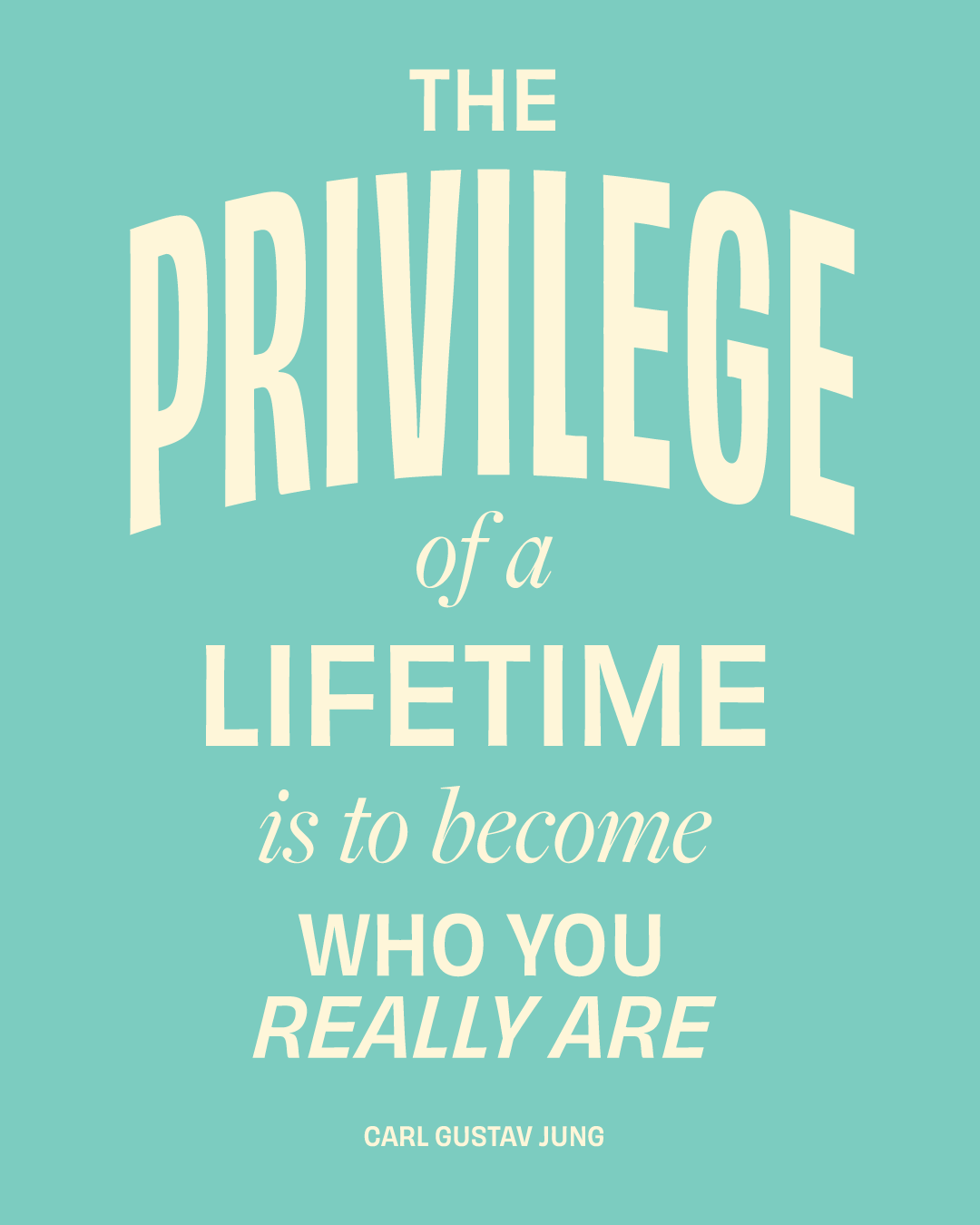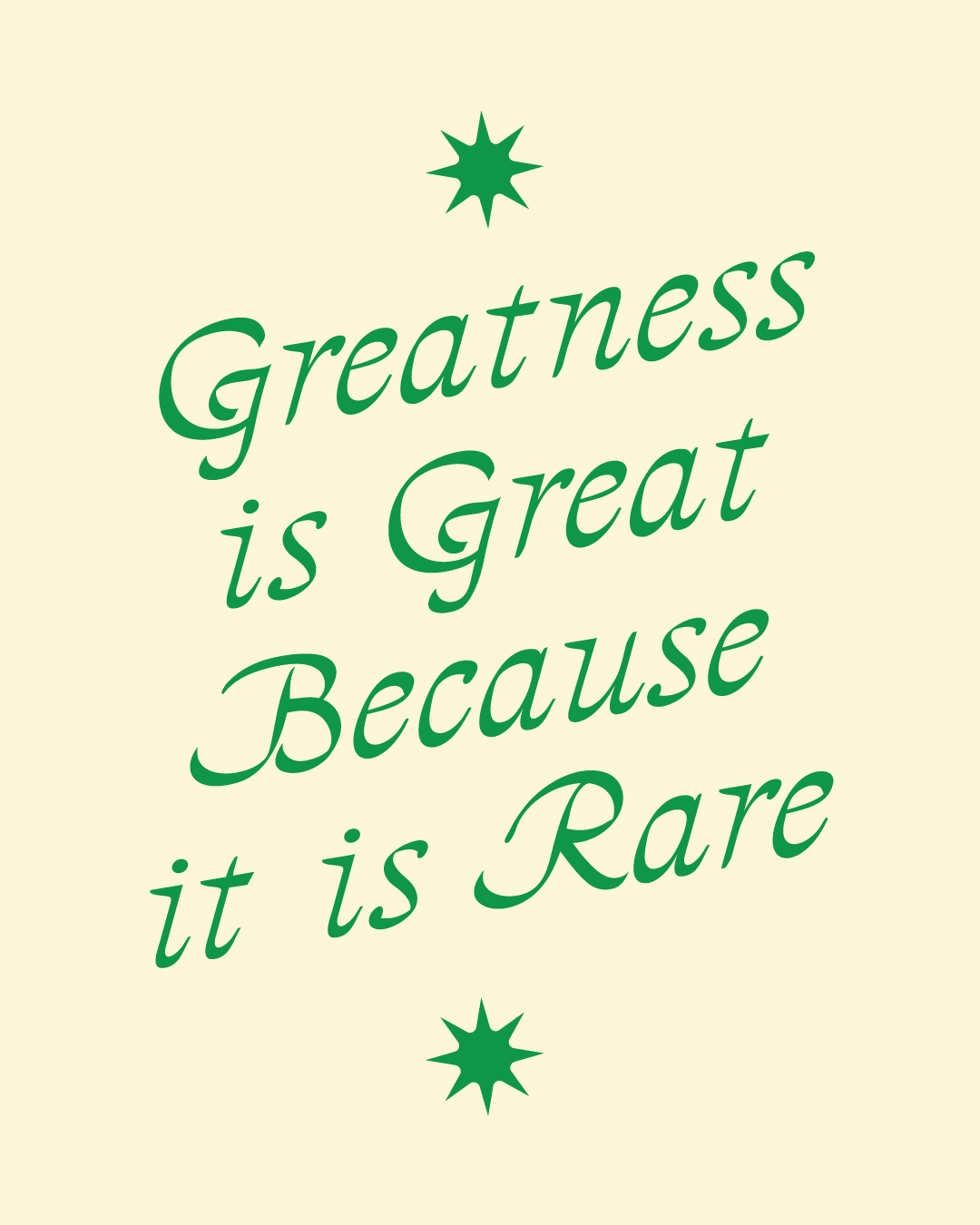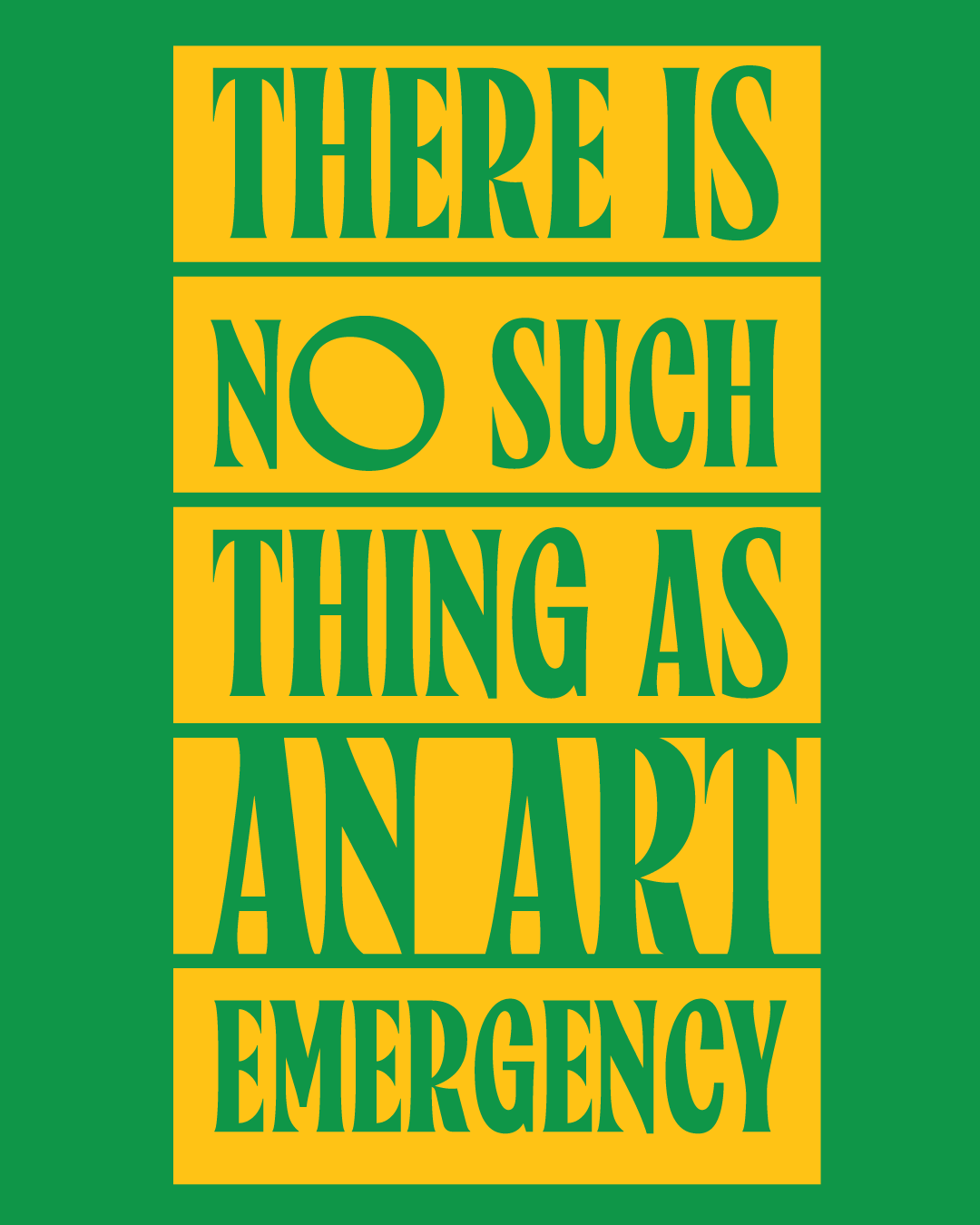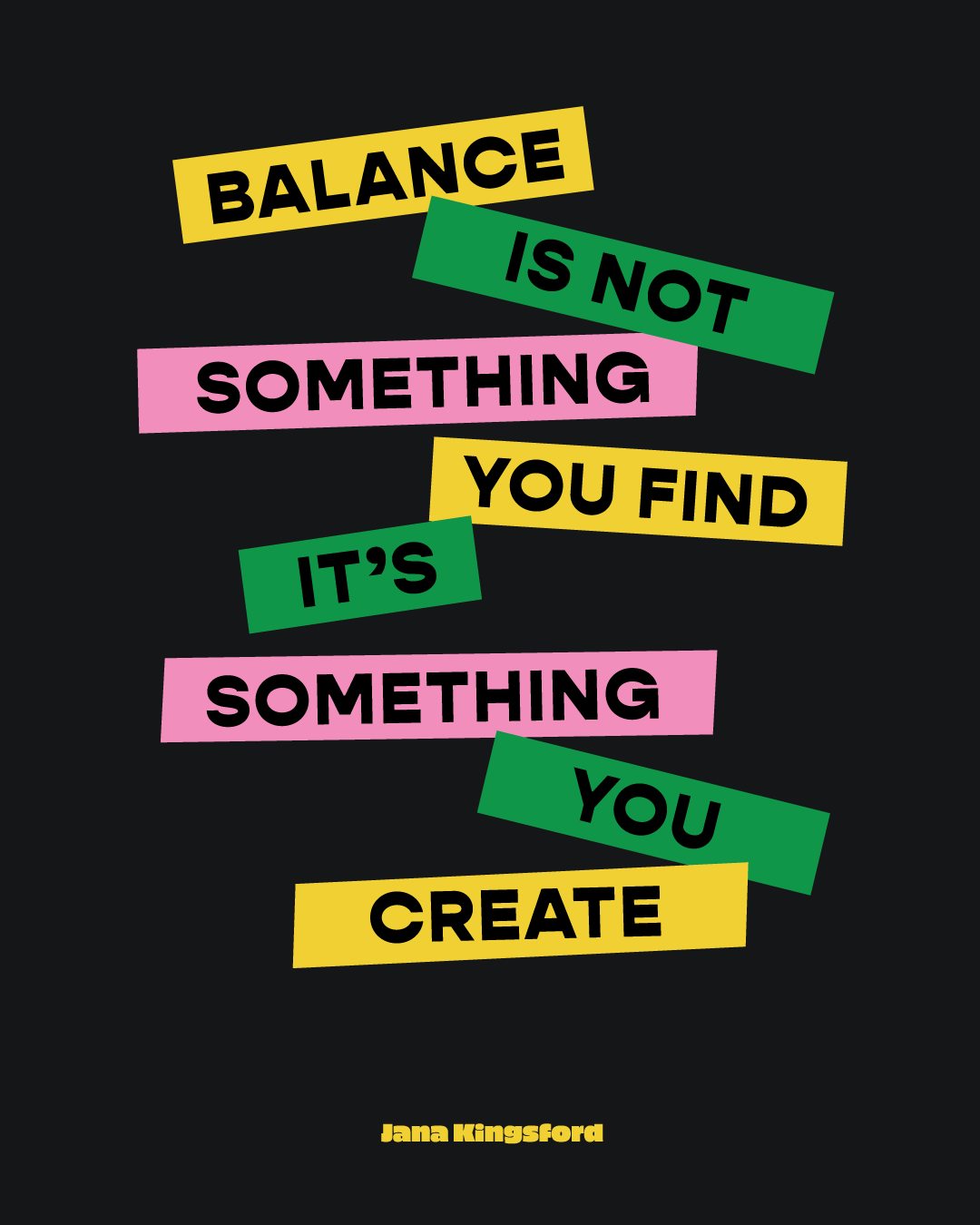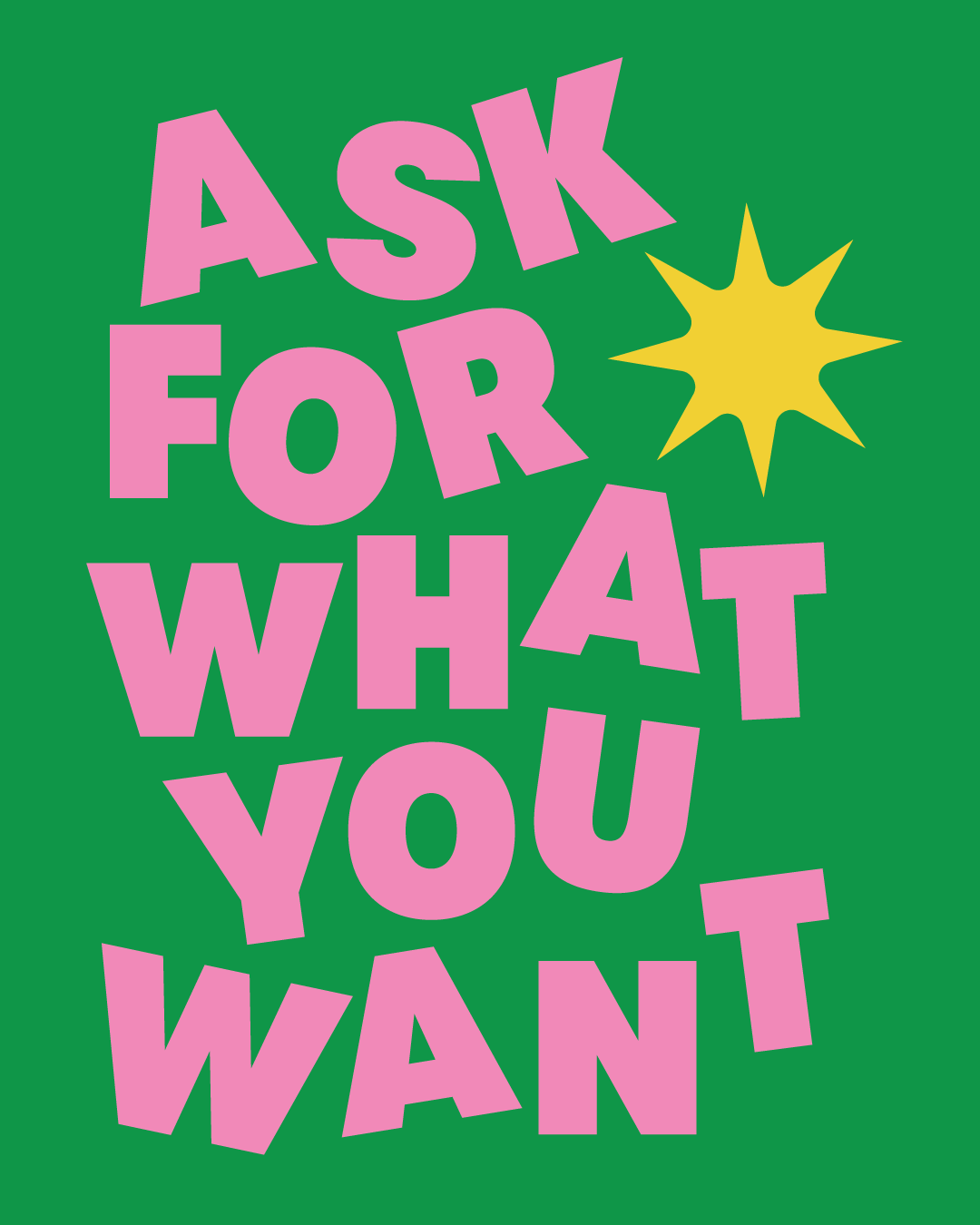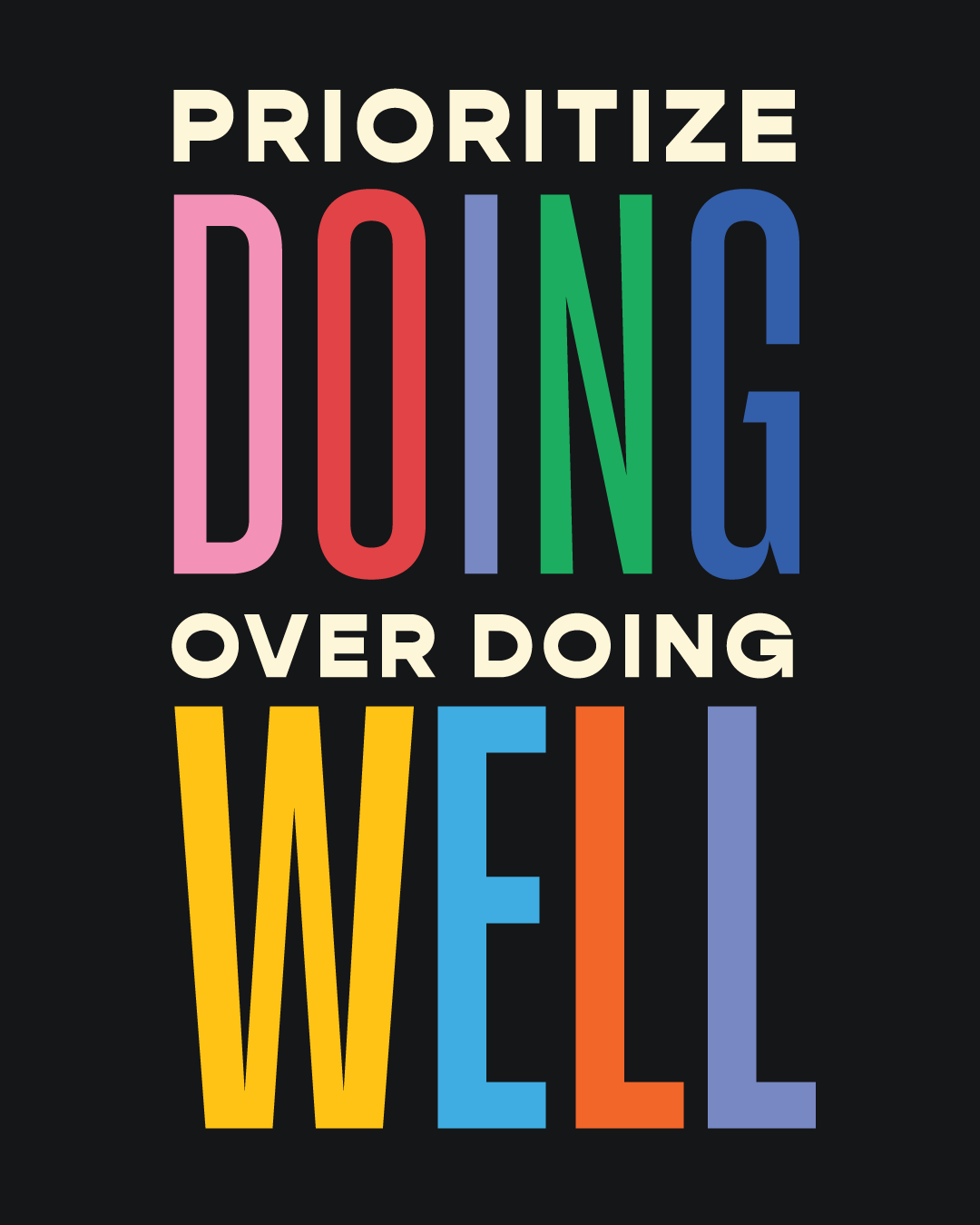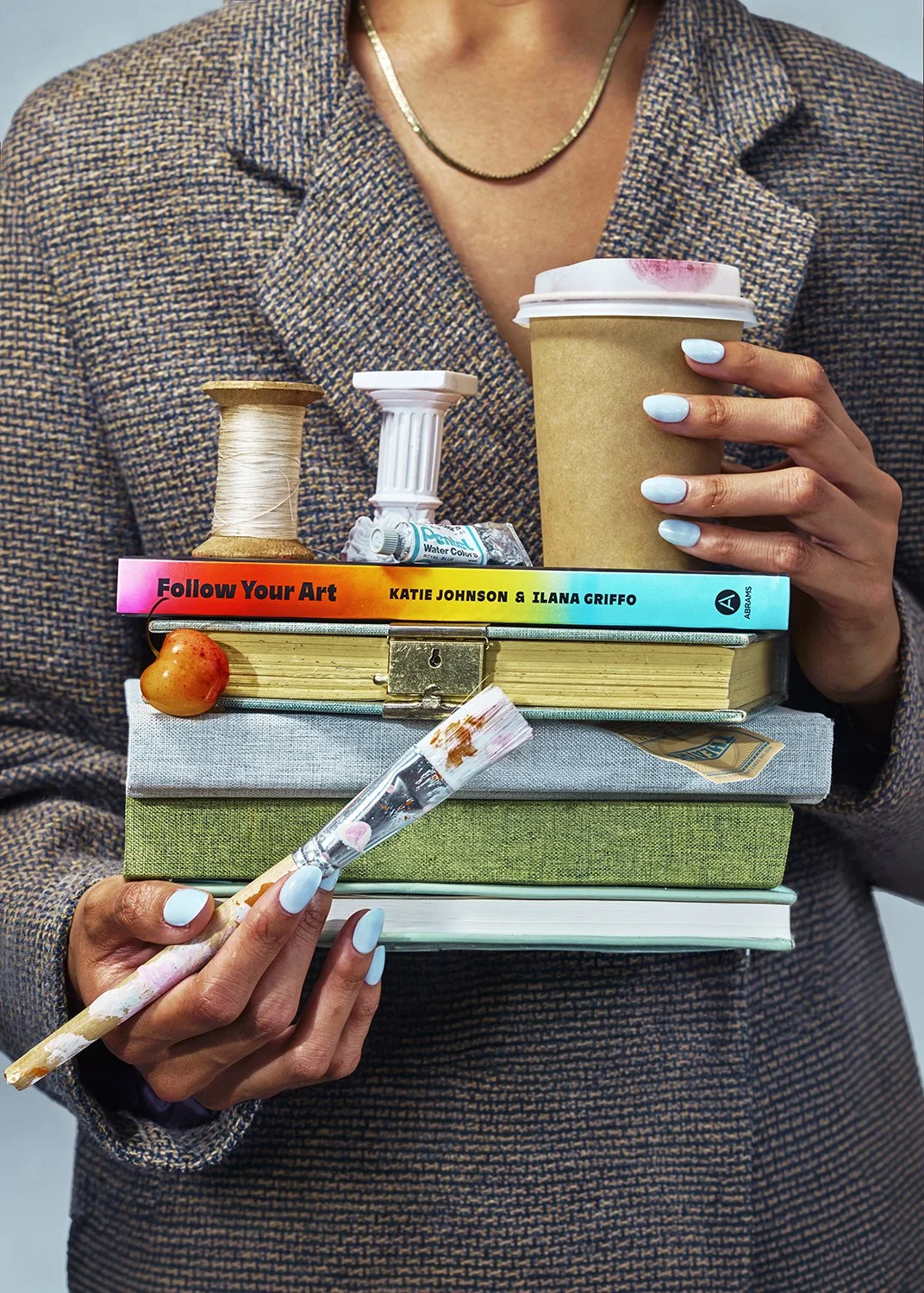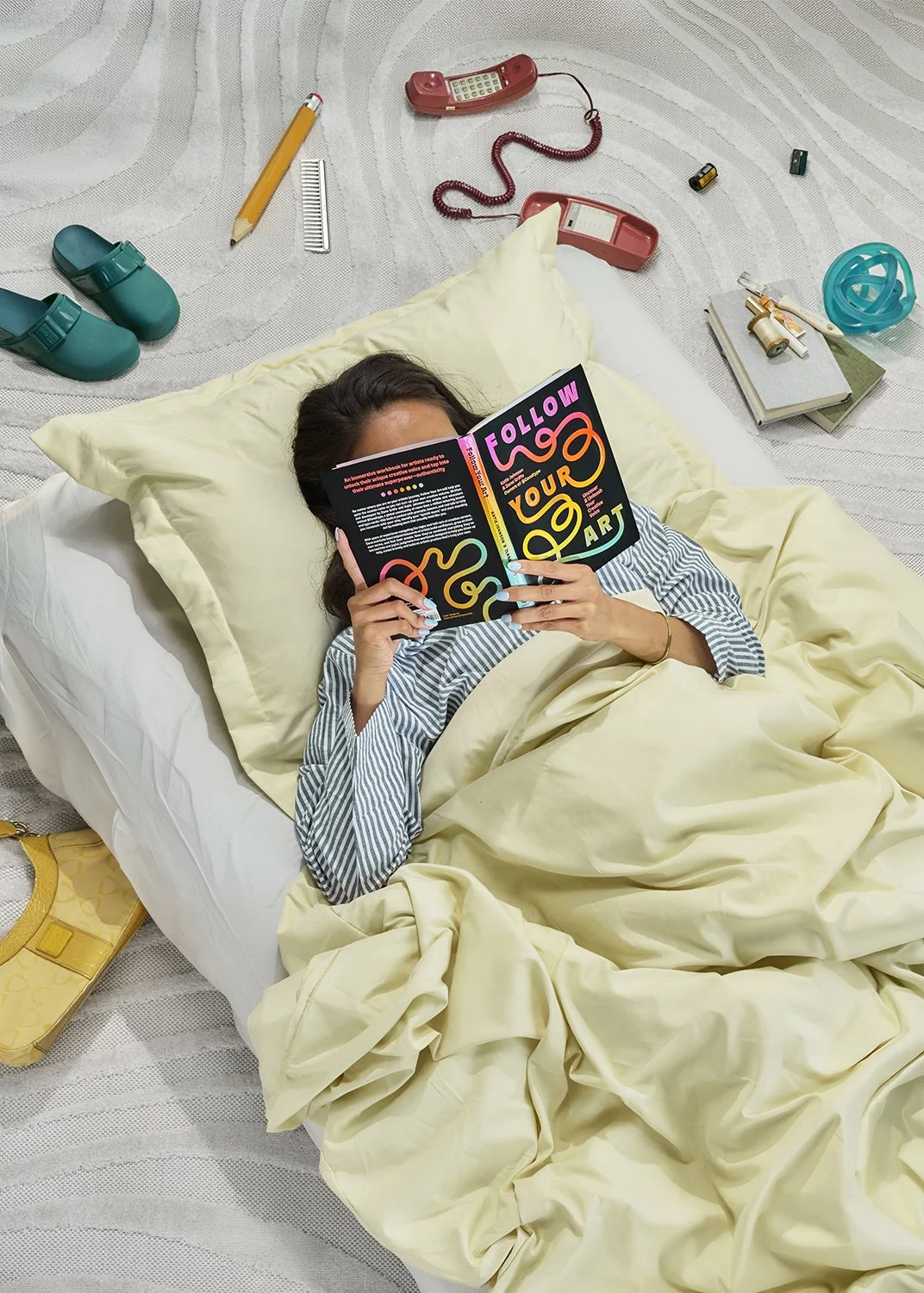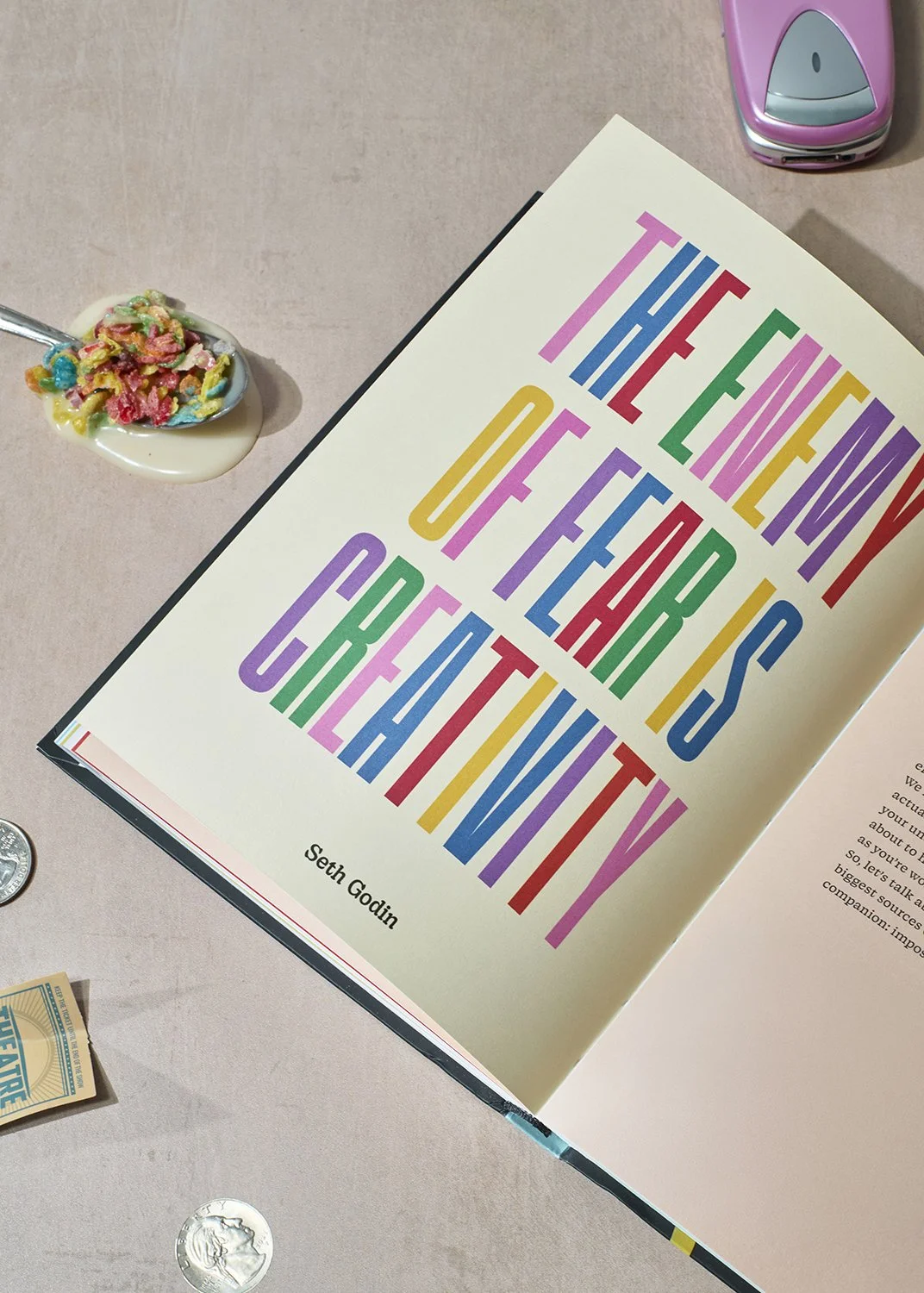
Project Overview
Follow Your Art Book
In addition to writing Follow Your Art, we also designed the cover and 24 full-page interior quotes. We worked closely with the talented design team at Abrams to art direct the additional interior spreads.
It’s always tricky to design for yourself, but we had a pretty clear vision of the aesthetic we wanted for this book right off the bat. The book needed to feel bold, colorful, and engaging—just as fun to look at as to read. We created a fun, vibrant space for readers to explore, find inspiration, and go on their own creative adventure.
Interior Quote Pages
Kyle Hammrick took some of our interior pages and brought them to life with motion!